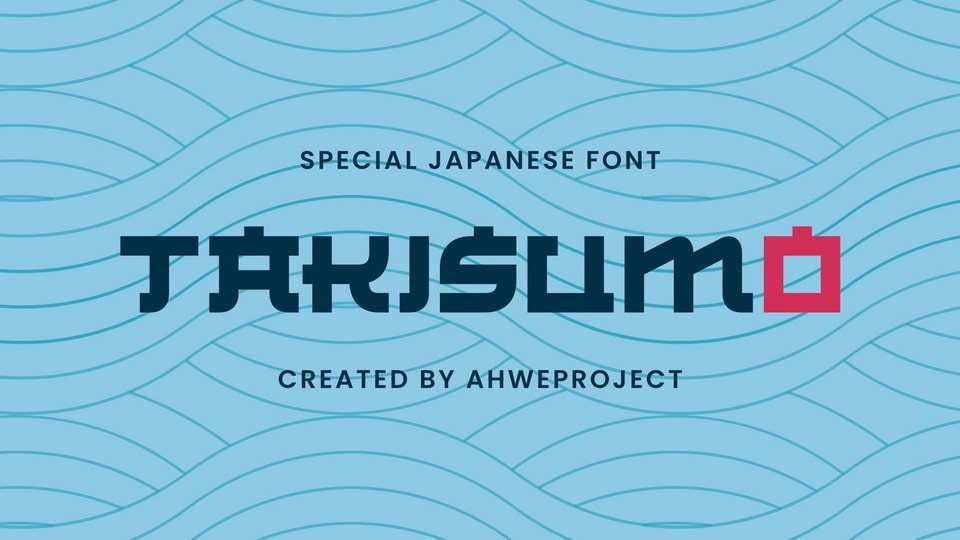
Download Takisumo font, a display typeface that is inspired by the Japanese style, perfect for any Asian theme of design and promotion to create spectacular designs!